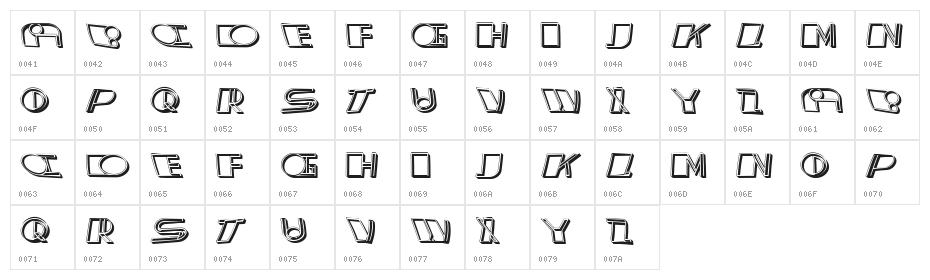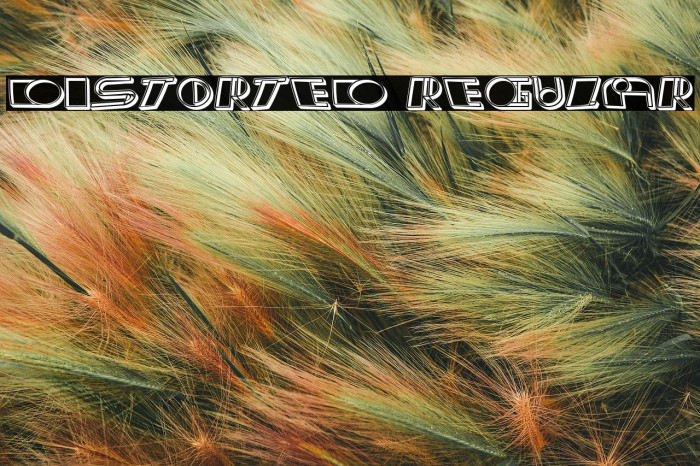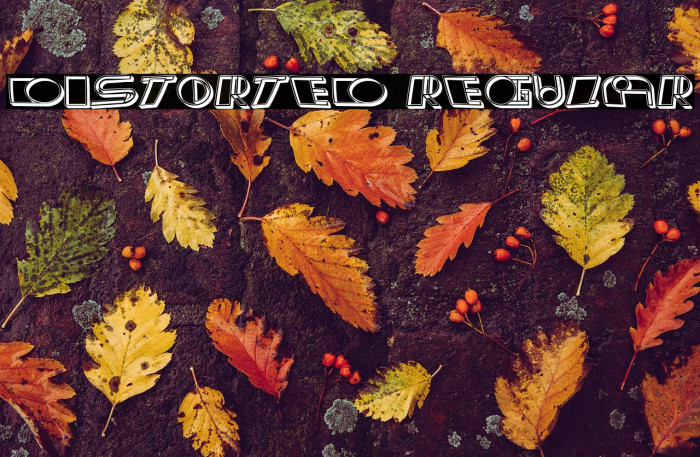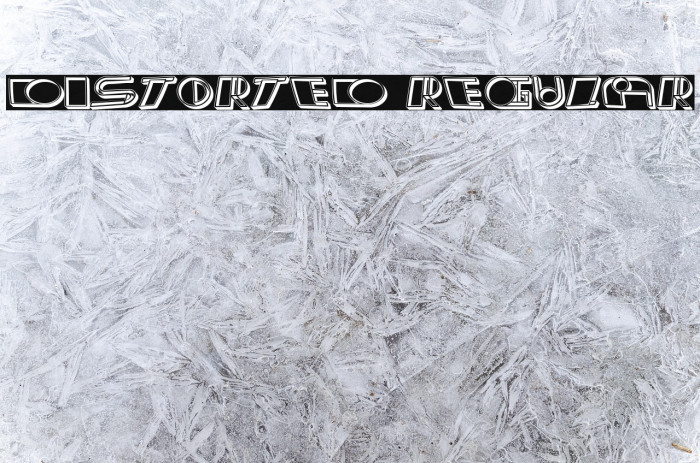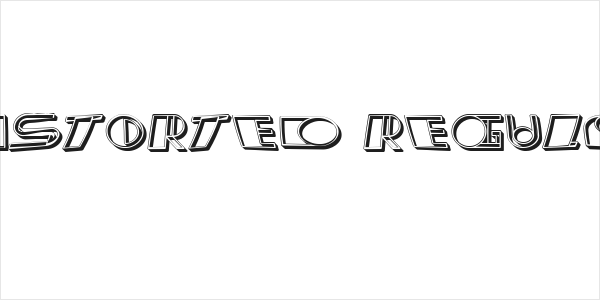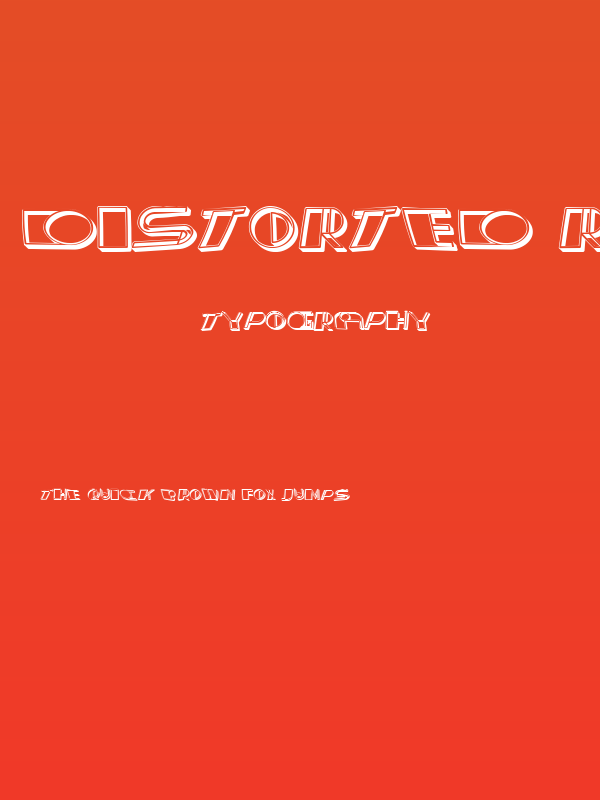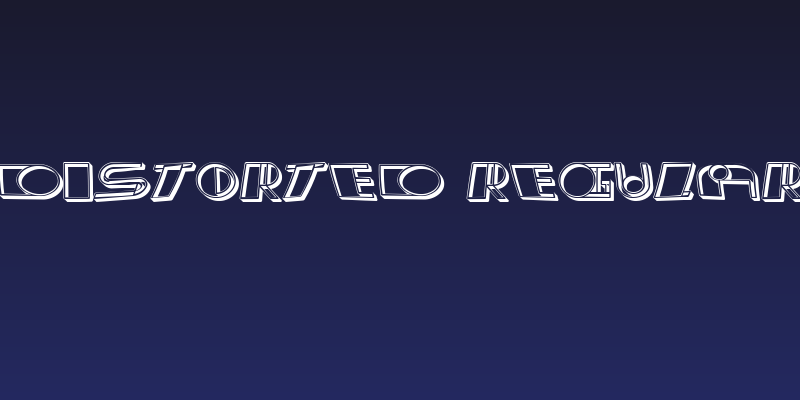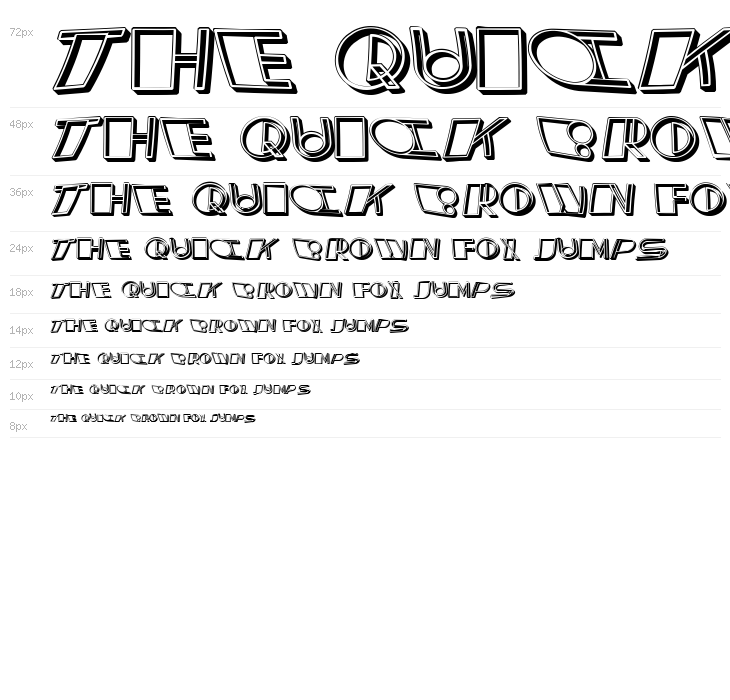
Distorted Regular Font
✎ Distorted Eroded
Distorted Regular Description
This font features a unique and playful design with a distorted, three-dimensional appearance. Each character is outlined with a bold, black line, giving it a striking and dynamic look. The letters have an irregular shape, creating a sense of movement and energy. This style is reminiscent of graffiti or street art, making it ideal for projects that require a bold and unconventional aesthetic. The font's quirky and artistic nature makes it stand out, capturing attention with its creative flair.
| Overall Style | Modern, Artistic |
| Proposed Projects | Ideal for posters, album covers, street art designs, and creative branding projects. |